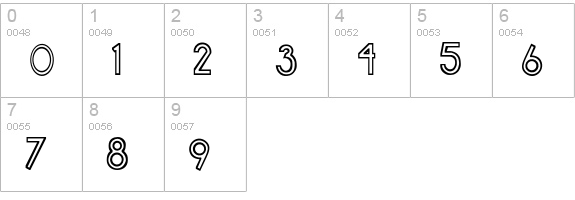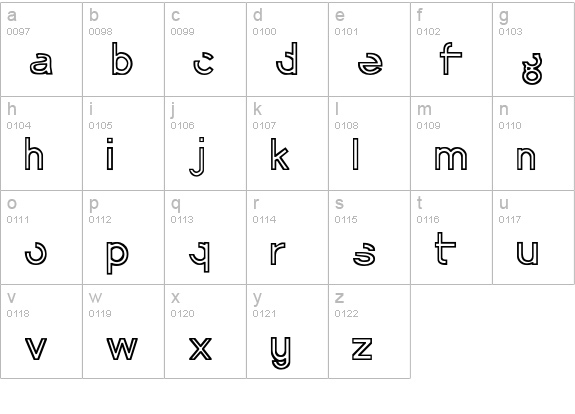
Catastronic Font Details
Catastronic font is a stunning display typeface that exudes a perfect blend of modernity and elegance. Its sharp edges and bold strokes make it perfect for attention-grabbing headlines, logos, and branding projects. The unique design of Catastronic font adds a touch of sophistication to any creative endeavor, setting it apart from the ordinary. What sets Catastronic font apart is not just its striking appearance, but also the fact that it is available for free. Yes, you read that right - Catastronic font is freely available for download at FontsMarket.com. This means you can elevate your designs without breaking the bank, making it an ideal choice for designers, artists, and creatives looking to make a statement without compromising on quality. Whether you're working on a print project, web design, or any other creative endeavor, Catastronic font is sure to make a lasting impression. Download it for free today and unleash your creativity with this bold and eye-catching typeface.